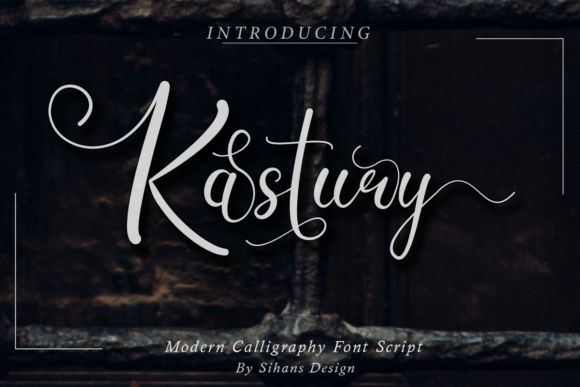
About Kastury Font
Kastury is an enchanting handwritten font. This versatile script font has a wide spectrum of applications ranging from greeting cards to headlines and is guaranteed to add a romantic feel to your next project.